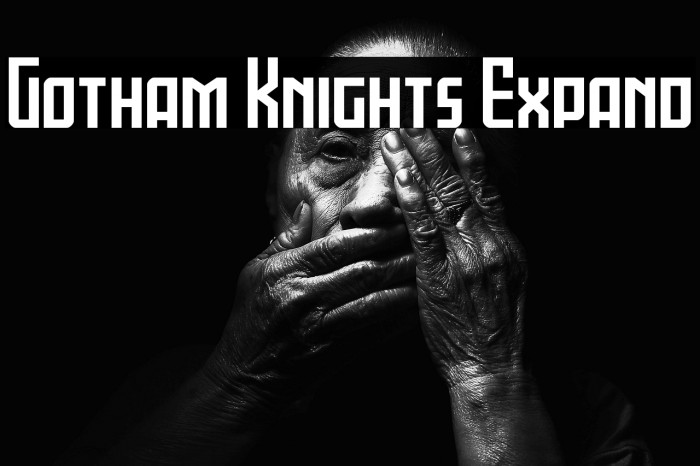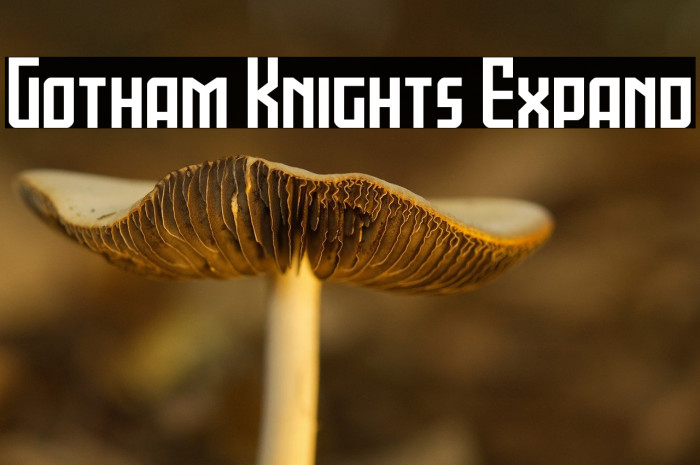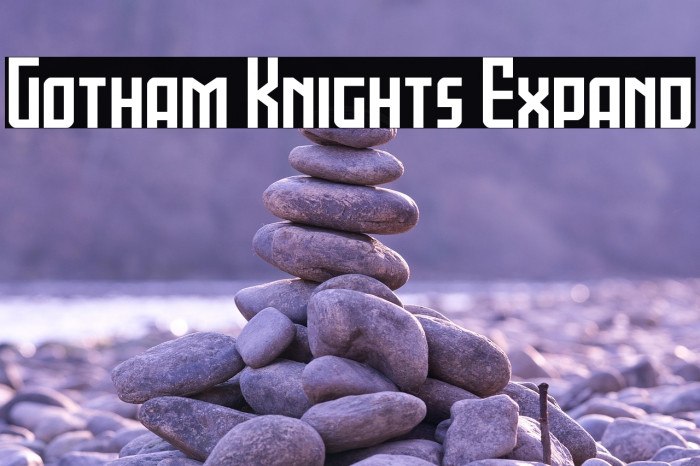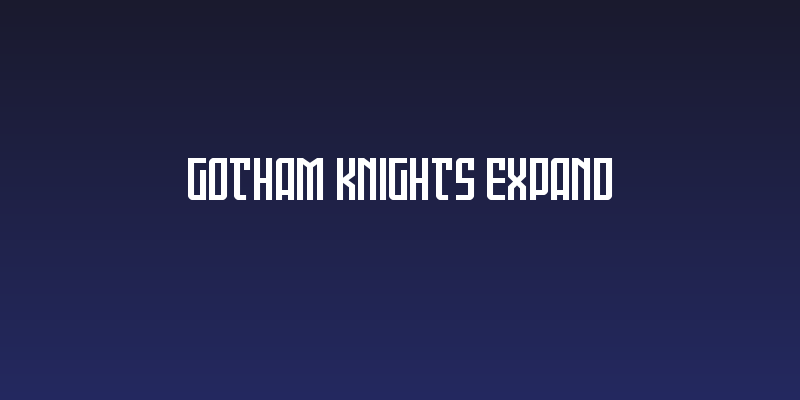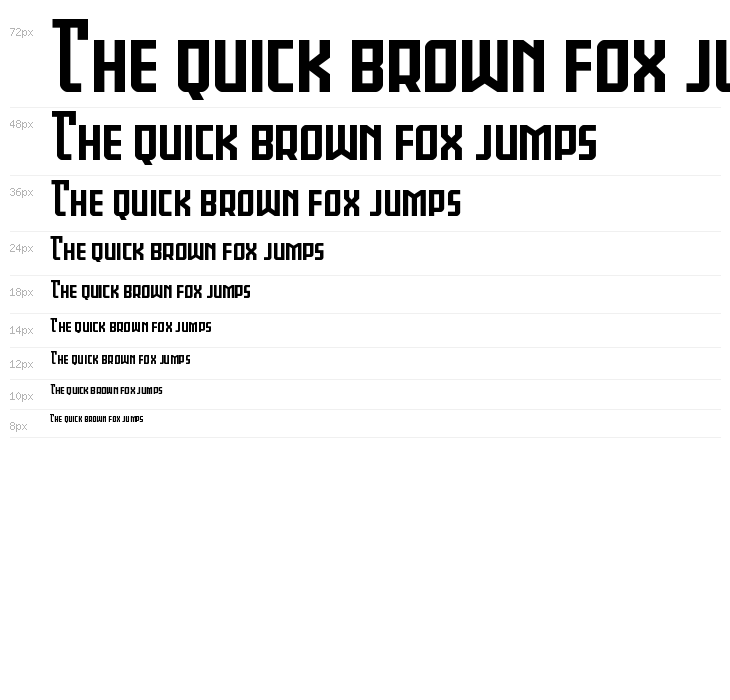
Gotham Knights Expand Font
Gotham Knights Expand Description
This font features a bold and geometric design with a modern flair. The characters are constructed with straight lines and sharp angles, giving them a futuristic and tech-inspired appearance. The uppercase letters are particularly striking, with a uniform height and width that create a cohesive and structured look. The numbers and special characters maintain this geometric style, ensuring consistency across all glyphs. The font's strong presence makes it ideal for attention-grabbing headlines and titles.
| Proposed Projects | Ideal for video game titles, tech branding, futuristic posters, and digital media. |